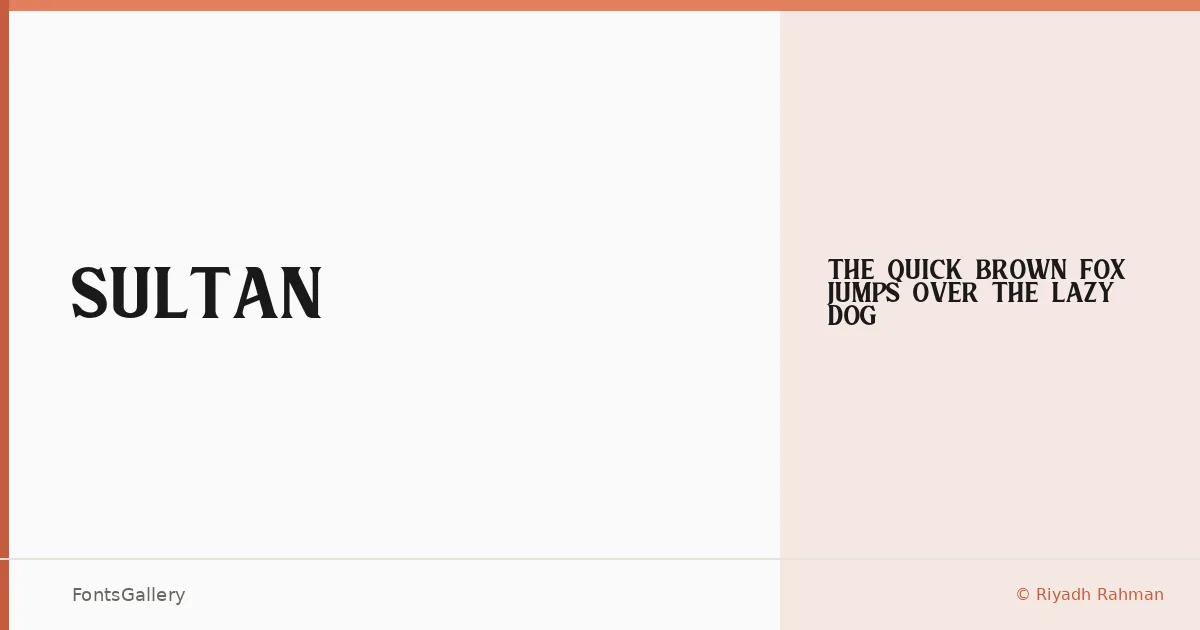
About Sultan Font
There is a deliberate heaviness to these serifs — the kind that commands attention at display sizes without resorting to novelty. Designed by Riyadh Rahman and released under the ErgibiStudio2020 copyright, the family arrives as a single Regular weight built in OTF format using FontCreator 11. The letterforms carry a classic, vintage authority that reads as confident rather than ornate.
This is a bold, professional serif with a character suited to headline work — the strokes are firm, the overall impression is that of a face rooted in print tradition. With only the one Regular cut in the family, it is a focused tool rather than a system: you use it where presence matters and let surrounding type handle the supporting roles. Latin character coverage keeps the scope clear and intentional.
The vintage weight and classical structure make it a natural fit for editorial headlines, magazine mastheads, poster titles, and logo lockups where a serif needs to anchor the composition. Branding work that calls for a heritage tone will find the proportions credible. It pairs well with clean grotesques and geometric sans-serifs — Helvetica and Josefin Sans both sit comfortably alongside it — and faces like Armelie, Asap, and Kactigona offer complementary contrast for longer supporting text.